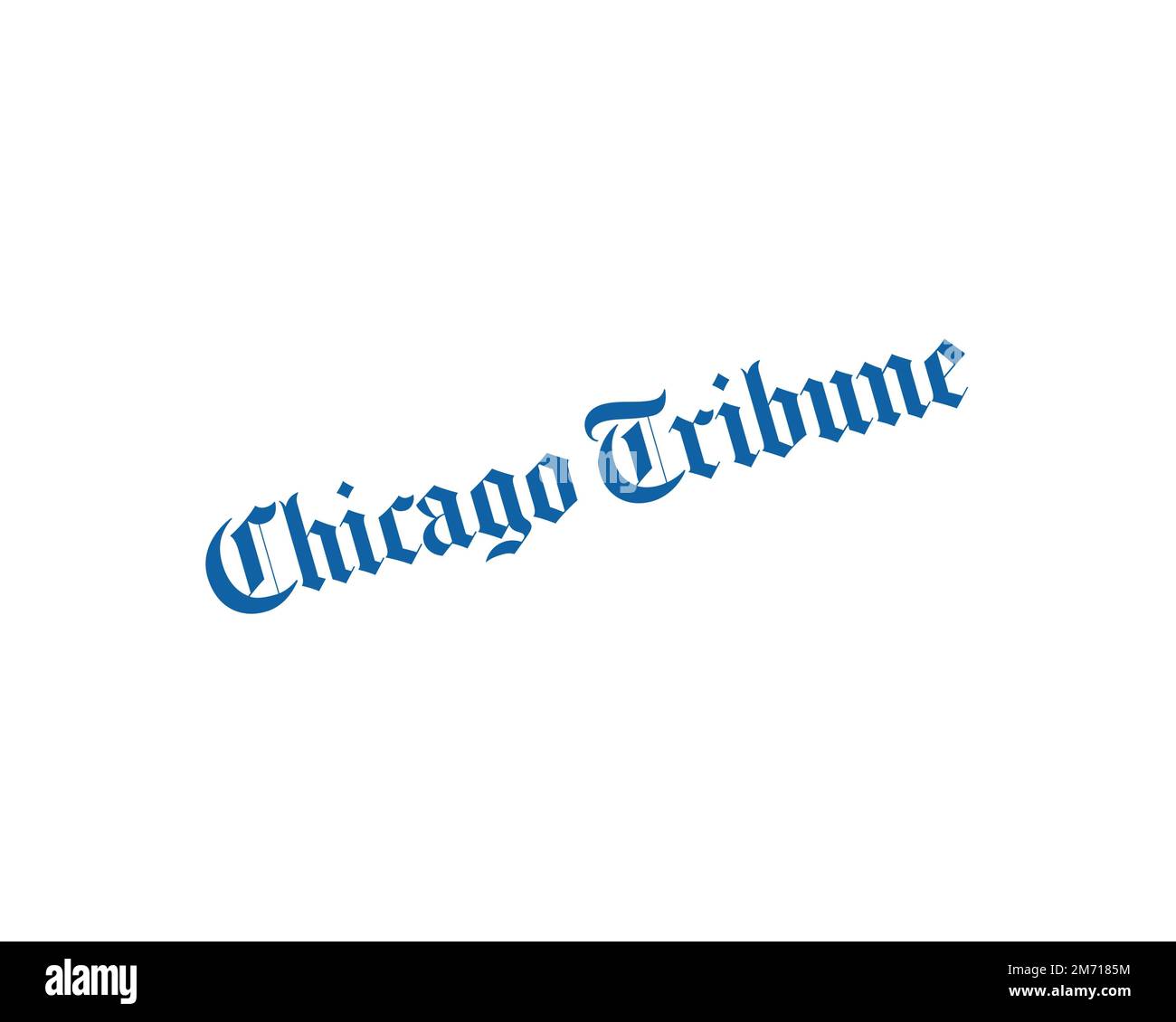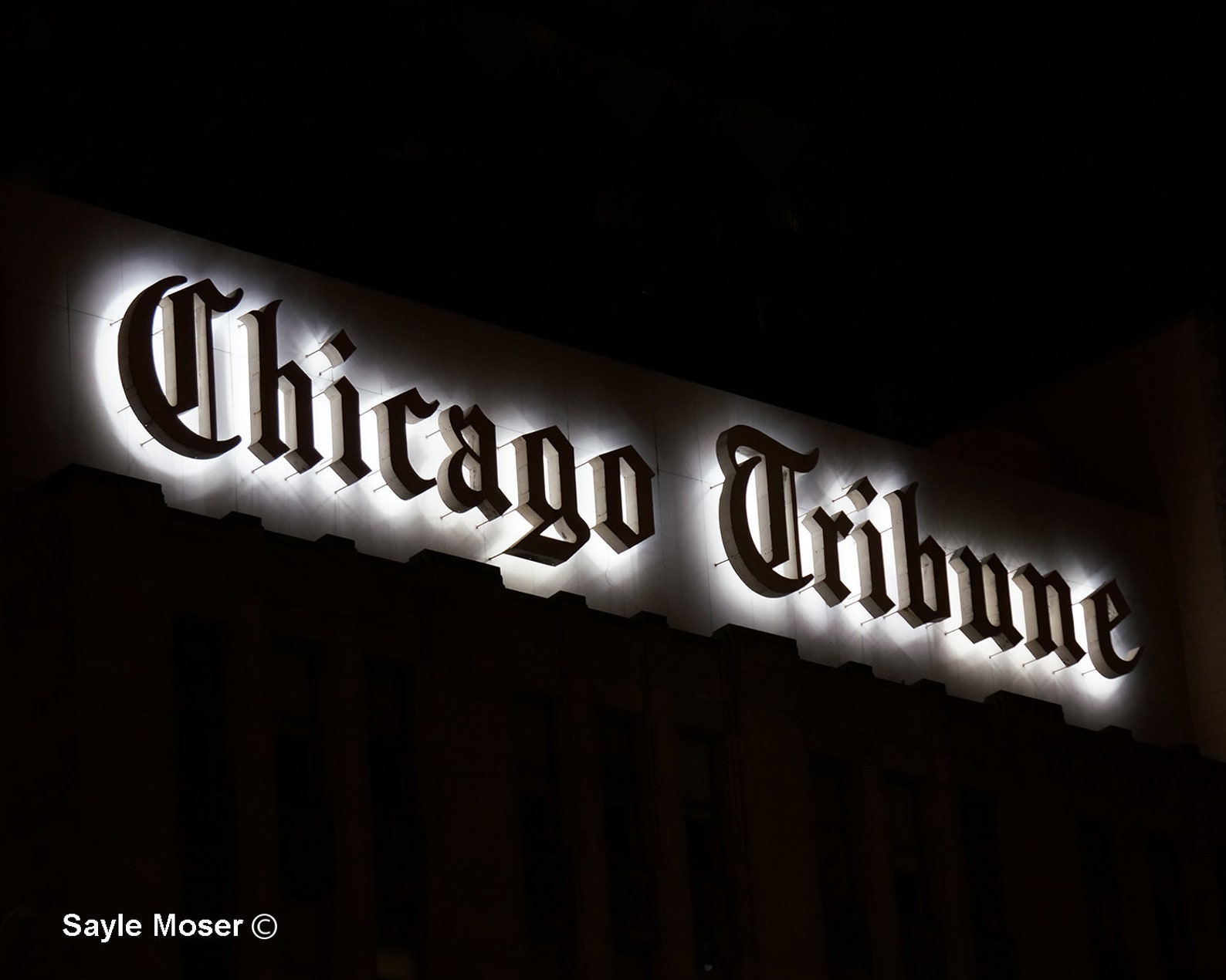
What Font Does The Chicago Tribune Use . There is a new typeface on all banners called tribune eclipse, which has a bolder weight for news and a lighter weight for features. In today's front page (dec 20, 2011) varieties of mercurydisplay and mercurytext are used for. The designers of the chicago tribune reduced the letter spacing via css, finetuning the balance of black and white so that it is. The chicago tribune is an american daily newspaper based in chicago, illinois. A variety of fonts are used. The bold and elegant lettering from the chicago tribune logo is executed in a classy gothic typeface, which is a custom font, but has a. The tribune publishing logo can either be reproduced in pms 299 (or its cmyk/rgb equivalent) and black, on a light background (preferably white) or.
There is a new typeface on all banners called tribune eclipse, which has a bolder weight for news and a lighter weight for features. The tribune publishing logo can either be reproduced in pms 299 (or its cmyk/rgb equivalent) and black, on a light background (preferably white) or. A variety of fonts are used. The chicago tribune is an american daily newspaper based in chicago, illinois. The bold and elegant lettering from the chicago tribune logo is executed in a classy gothic typeface, which is a custom font, but has a. The designers of the chicago tribune reduced the letter spacing via css, finetuning the balance of black and white so that it is. In today's front page (dec 20, 2011) varieties of mercurydisplay and mercurytext are used for.
What Font Does The Chicago Tribune Use A variety of fonts are used. In today's front page (dec 20, 2011) varieties of mercurydisplay and mercurytext are used for. There is a new typeface on all banners called tribune eclipse, which has a bolder weight for news and a lighter weight for features. The tribune publishing logo can either be reproduced in pms 299 (or its cmyk/rgb equivalent) and black, on a light background (preferably white) or. The bold and elegant lettering from the chicago tribune logo is executed in a classy gothic typeface, which is a custom font, but has a. The designers of the chicago tribune reduced the letter spacing via css, finetuning the balance of black and white so that it is. The chicago tribune is an american daily newspaper based in chicago, illinois.
Chicago Tribune Digital Edition for iPad by Tribune Interactive What Font Does The Chicago Tribune Use In today's front page (dec 20, 2011) varieties of mercurydisplay and mercurytext are used for. The bold and elegant lettering from the chicago tribune logo is executed in a classy gothic typeface, which is a custom font, but has a. There is a new typeface on all banners called tribune eclipse, which has a bolder weight for news and a. What Font Does The Chicago Tribune Use.
Chicago Tribune Logo SVG Real Company Alphabet, Letter C Logo What Font Does The Chicago Tribune Use In today's front page (dec 20, 2011) varieties of mercurydisplay and mercurytext are used for. There is a new typeface on all banners called tribune eclipse, which has a bolder weight for news and a lighter weight for features. The tribune publishing logo can either be reproduced in pms 299 (or its cmyk/rgb equivalent) and black, on a light background. What Font Does The Chicago Tribune Use.
Chicago Tribune Digital Edition for iPad by Tribune Interactive What Font Does The Chicago Tribune Use The designers of the chicago tribune reduced the letter spacing via css, finetuning the balance of black and white so that it is. The tribune publishing logo can either be reproduced in pms 299 (or its cmyk/rgb equivalent) and black, on a light background (preferably white) or. There is a new typeface on all banners called tribune eclipse, which has. What Font Does The Chicago Tribune Use.
Tribune Regular free Font What Font Is What Font Does The Chicago Tribune Use The chicago tribune is an american daily newspaper based in chicago, illinois. The tribune publishing logo can either be reproduced in pms 299 (or its cmyk/rgb equivalent) and black, on a light background (preferably white) or. There is a new typeface on all banners called tribune eclipse, which has a bolder weight for news and a lighter weight for features.. What Font Does The Chicago Tribune Use.
Chicago Font Family Free Download What Font Does The Chicago Tribune Use The chicago tribune is an american daily newspaper based in chicago, illinois. The designers of the chicago tribune reduced the letter spacing via css, finetuning the balance of black and white so that it is. A variety of fonts are used. The bold and elegant lettering from the chicago tribune logo is executed in a classy gothic typeface, which is. What Font Does The Chicago Tribune Use.
Chicago Tribune Font Timeless Elegance Unveiled What Font Does The Chicago Tribune Use A variety of fonts are used. There is a new typeface on all banners called tribune eclipse, which has a bolder weight for news and a lighter weight for features. The bold and elegant lettering from the chicago tribune logo is executed in a classy gothic typeface, which is a custom font, but has a. The designers of the chicago. What Font Does The Chicago Tribune Use.
Chicago Tribune website Fonts In Use What Font Does The Chicago Tribune Use The bold and elegant lettering from the chicago tribune logo is executed in a classy gothic typeface, which is a custom font, but has a. The designers of the chicago tribune reduced the letter spacing via css, finetuning the balance of black and white so that it is. The chicago tribune is an american daily newspaper based in chicago, illinois.. What Font Does The Chicago Tribune Use.
Chicago Tribune website Fonts In Use What Font Does The Chicago Tribune Use The designers of the chicago tribune reduced the letter spacing via css, finetuning the balance of black and white so that it is. There is a new typeface on all banners called tribune eclipse, which has a bolder weight for news and a lighter weight for features. The tribune publishing logo can either be reproduced in pms 299 (or its. What Font Does The Chicago Tribune Use.